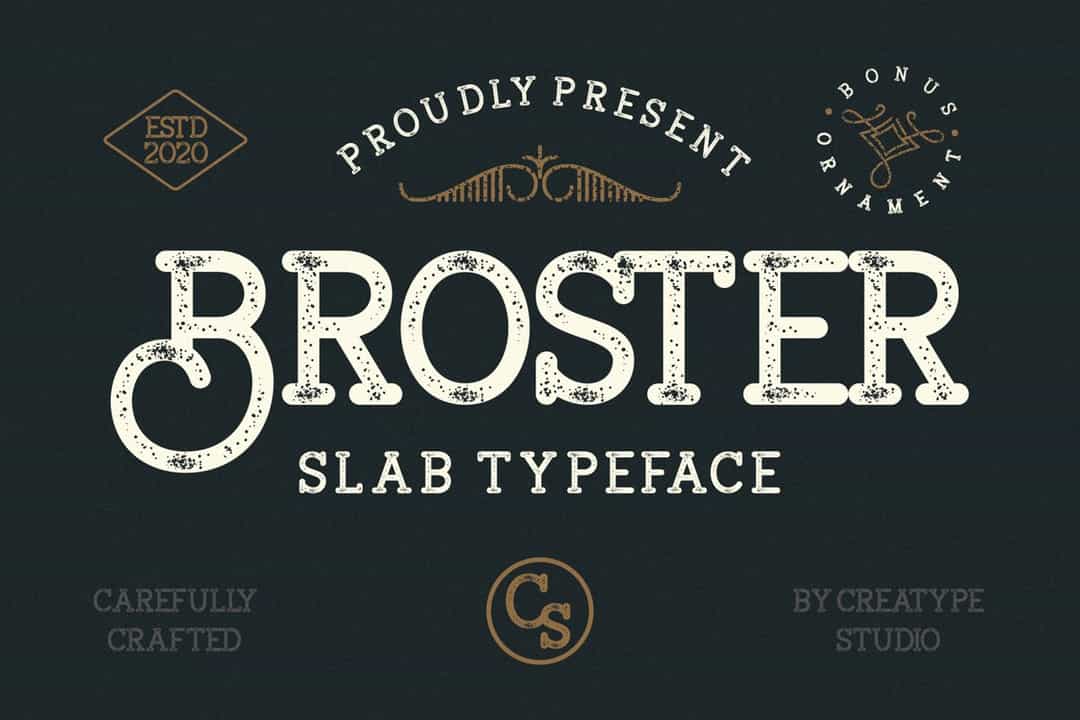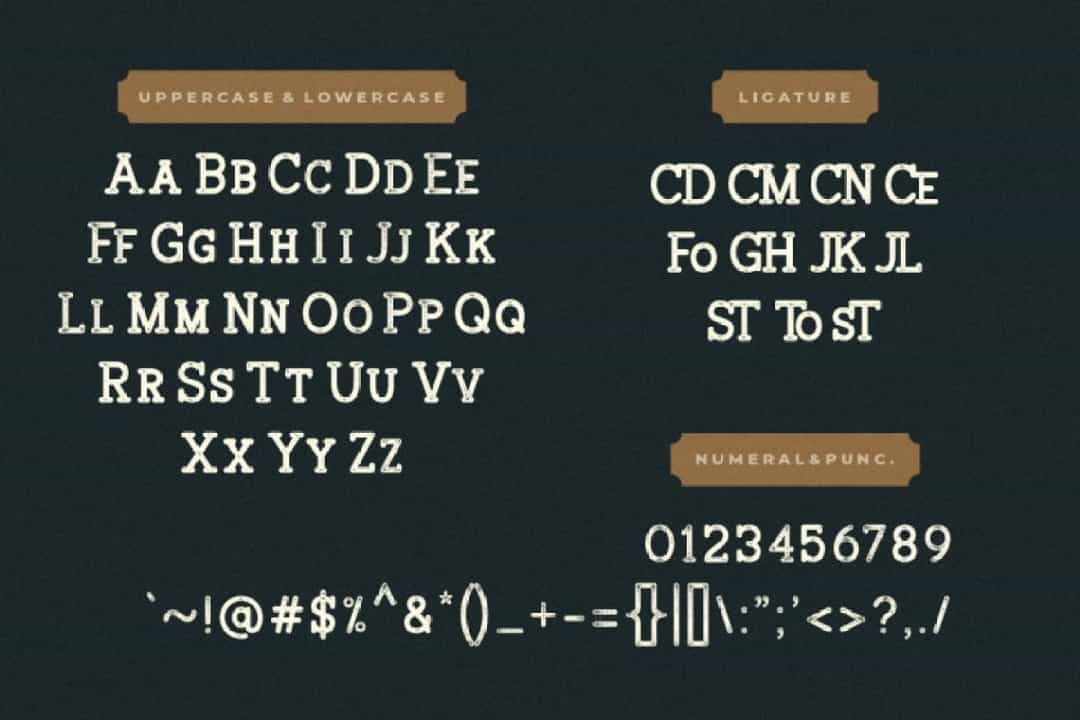
Broster is a beautiful flat font with a stamp element alongside decorative elements, suited for watermarks, photographs, social media advertisement, logos, branding, invitations, designs, labels, stationery products, wedding products, packaging of products, special occasions or events requiring handwritten style.